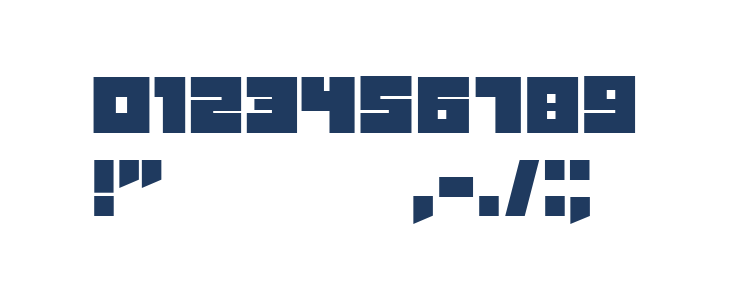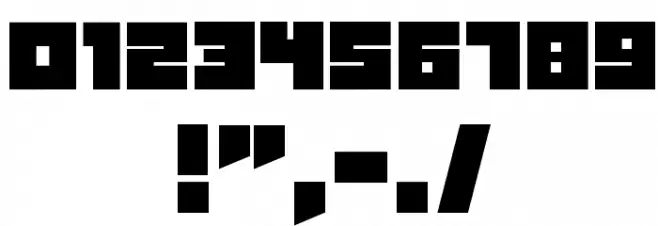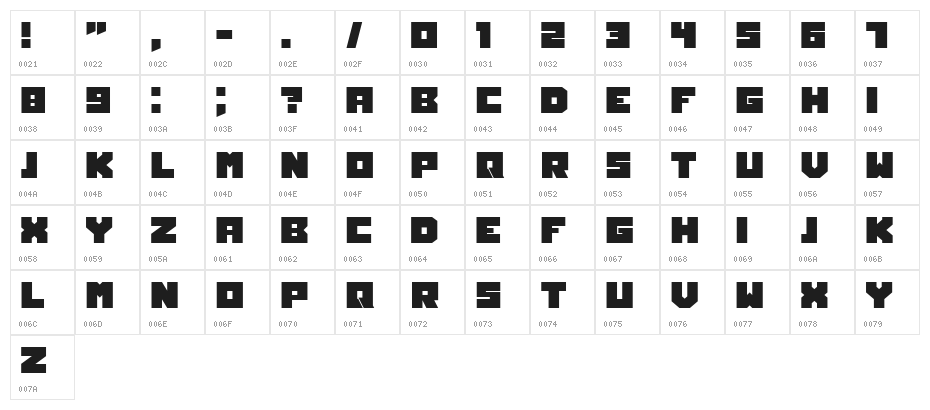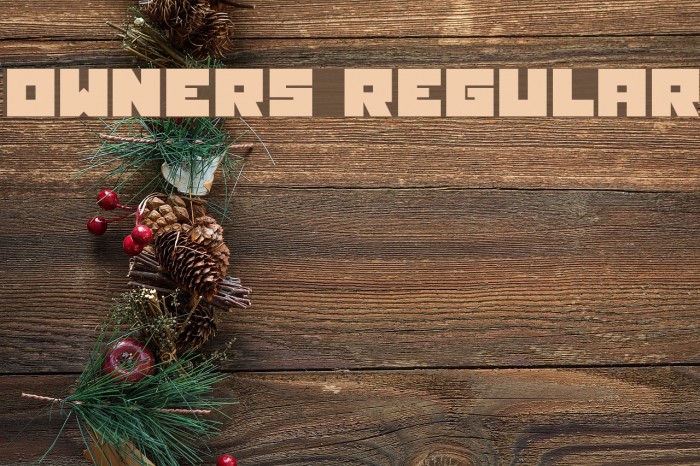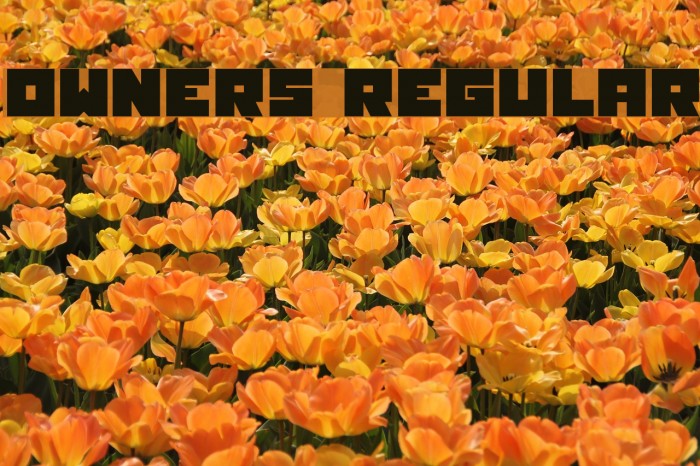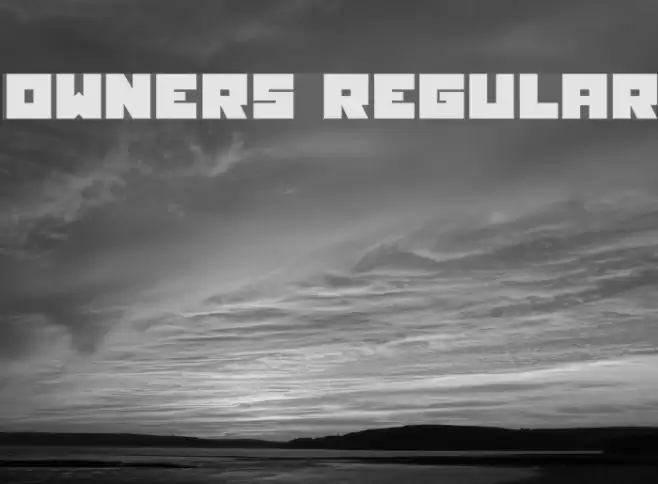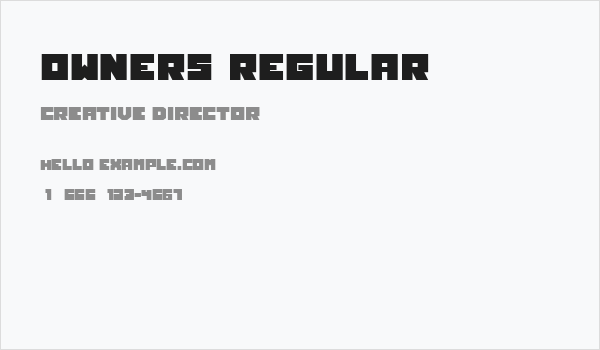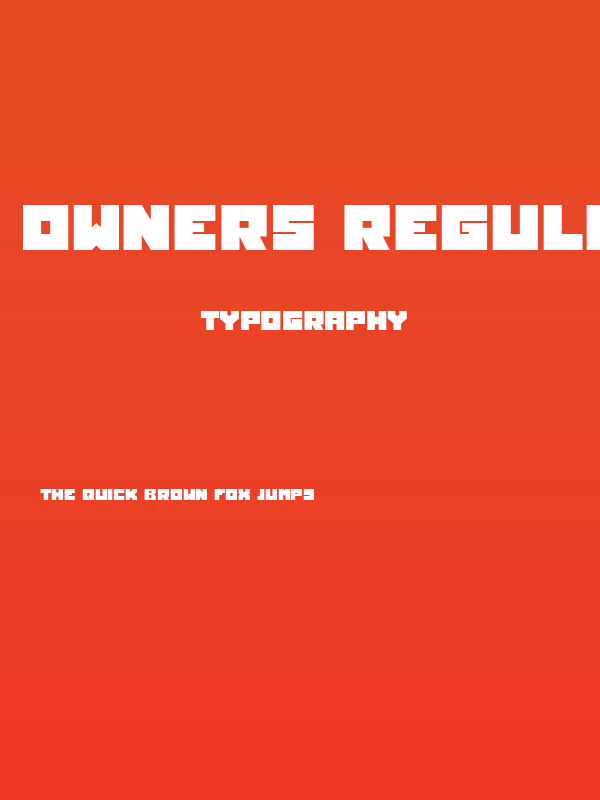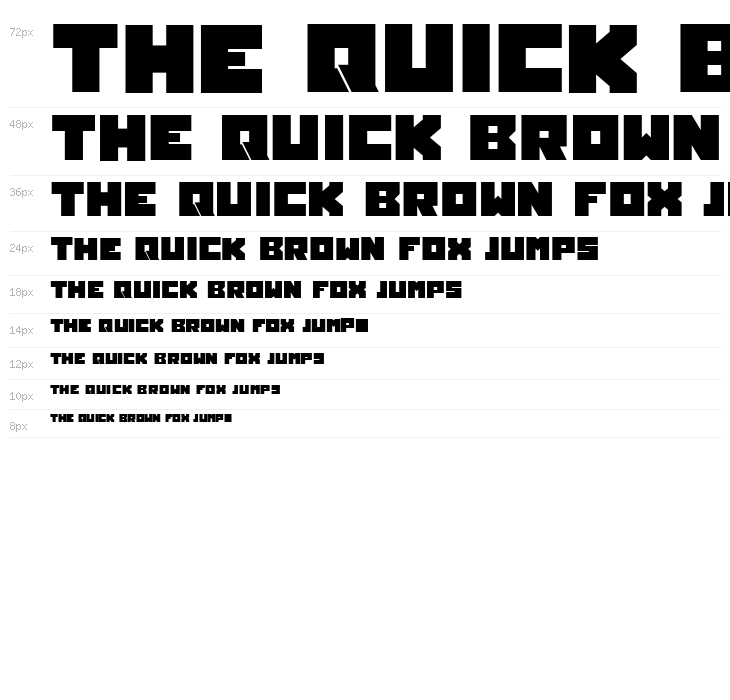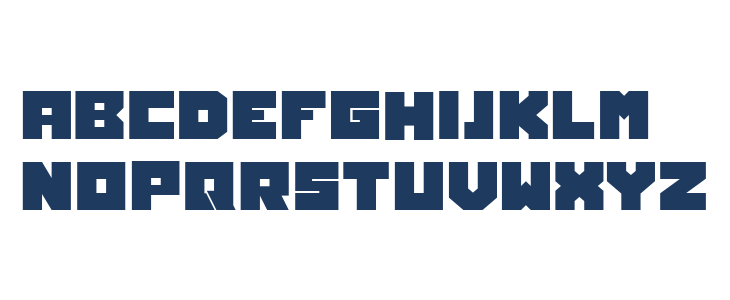
Owners Regular Font
Owners Regular Description
This font features a bold, geometric design with strong, angular lines and a blocky appearance. Each character is crafted with precision, exhibiting a uniform thickness that contributes to its robust and impactful style. The uppercase letters are particularly striking, with sharp edges and a modern aesthetic that commands attention. The lowercase letters maintain the same boldness, ensuring consistency throughout the typeface. Numbers and special characters are equally bold, making them stand out in any design. This font is ideal for projects that require a strong visual impact, such as posters, headlines, and branding materials.
| Proposed Projects | Ideal for posters, headlines, branding, and any project requiring a strong visual impact. |